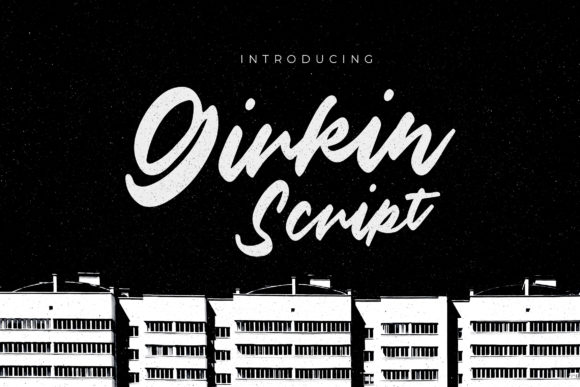
Dive into the world of Girkin Font - a captivating script font crafted to perfection by flavortype. A symphony of flowing strokes and modern elegance, Girkin is your ultimate choice for crafting unforgettable designs. Its unique and intriguing character dances off the page, igniting life into every project it adorns. Unleash your creativity and let Girkin take center stage, turning your designs into captivating masterpieces.
With Girkin, you hold the key to unlocking a world of possibilities. Picture your modern resume, transformed into a captivating narrative that commands attention. Each letter, meticulously crafted with Girkin's brushstrokes, dances across the page, captivating hiring managers and leaving a lasting impression. Or envision your latest social media post, adorned with Girkin's enchanting curves, drawing eyes and hearts like a magnet.
But Girkin's magic doesn't stop there. Its versatility knows no bounds. Whether you're designing stunning logos, crafting beautiful invitations, or creating eye-catching marketing materials, Girkin seamlessly adapts, adding a touch of modern sophistication to every project. Imagine your latest branding materials, infused with Girkin's unique charm, leaving a lasting impact on your audience.
Girkin's essence lies in its ability to evoke emotion and captivate hearts. Its every stroke whispers a story, inviting your audience on a journey of discovery. With Girkin as your design companion, you'll create designs that resonate, designs that speak to the soul. So, embrace Girkin today and embark on a creative adventure like never before.